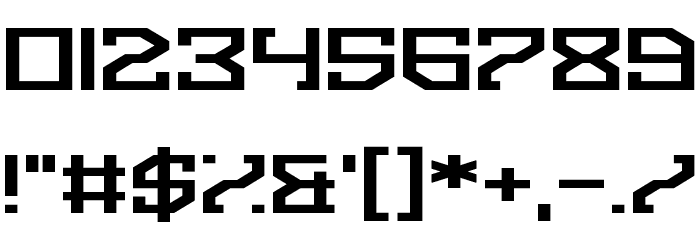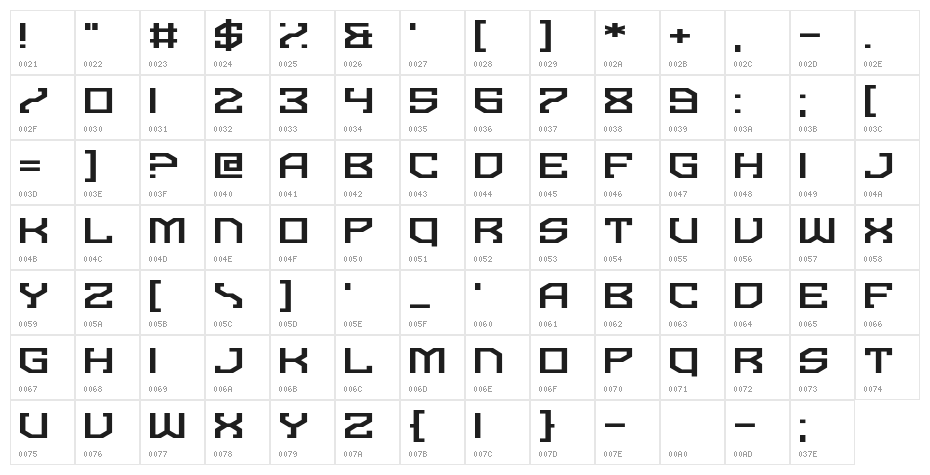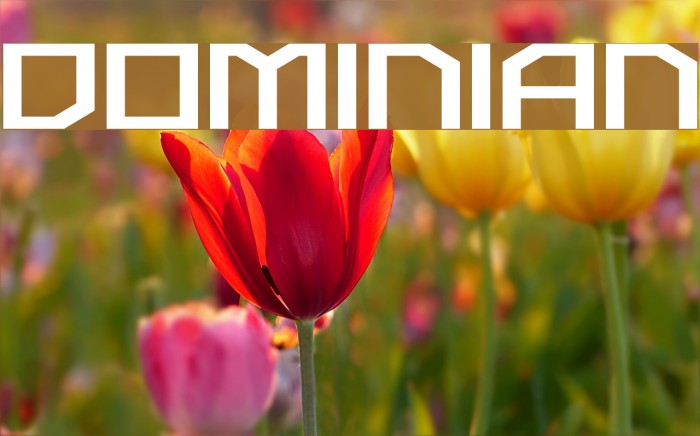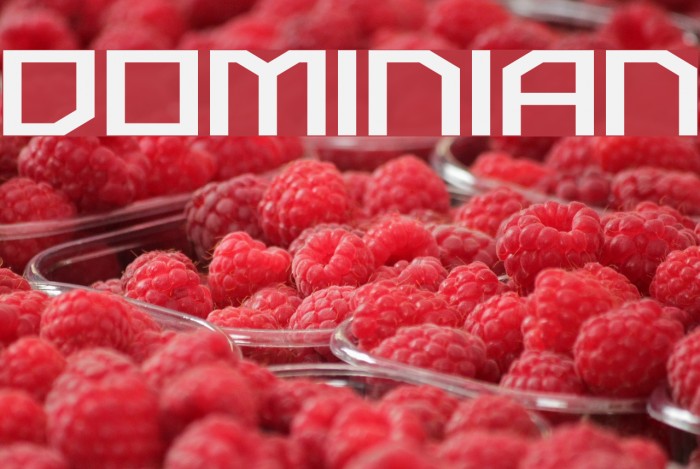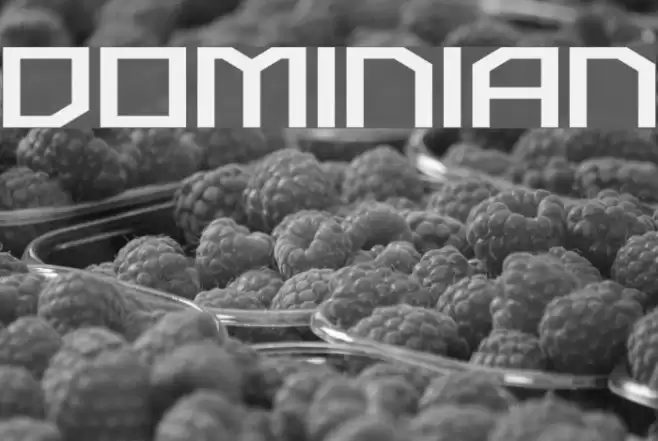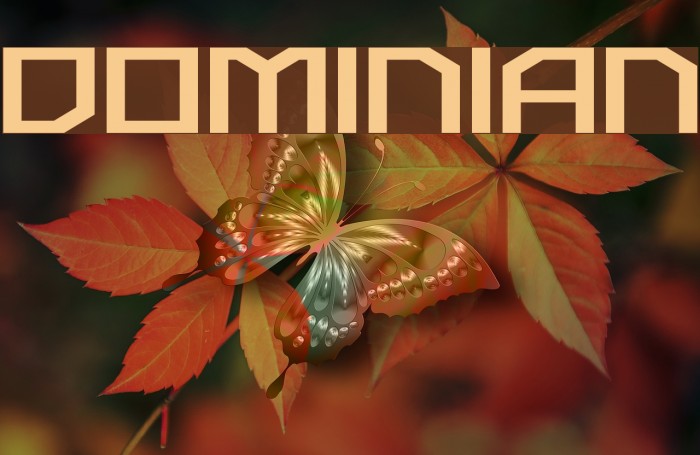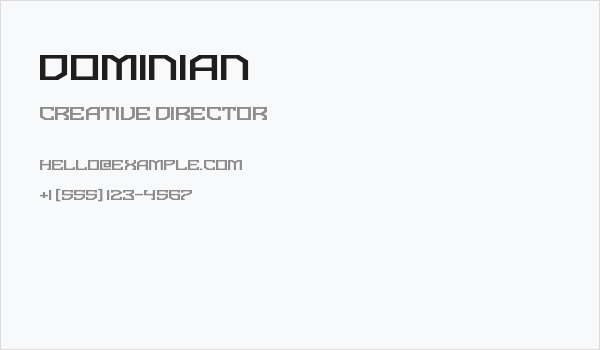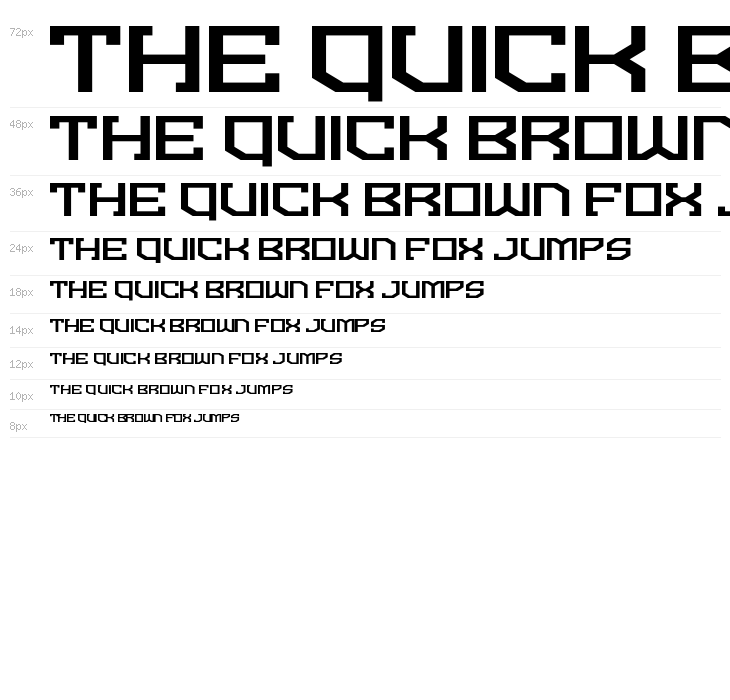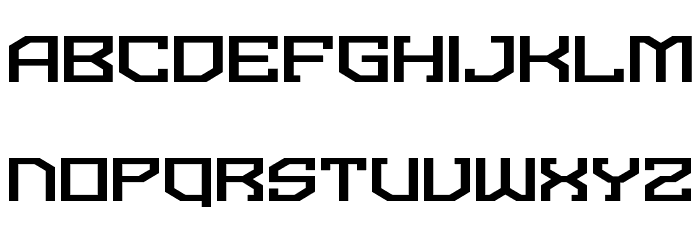
Dominian Font
Dominian Description
This font features a bold, geometric design with a distinctly modern and futuristic aesthetic. The characters are constructed with sharp angles and straight lines, creating a sense of precision and strength. The uppercase and lowercase letters maintain a consistent height, contributing to a uniform appearance. The numbers and special characters follow the same angular style, ensuring cohesion across all elements. The font's blocky structure and lack of curves give it a digital or tech-inspired feel, making it suitable for projects that require a contemporary and edgy look.